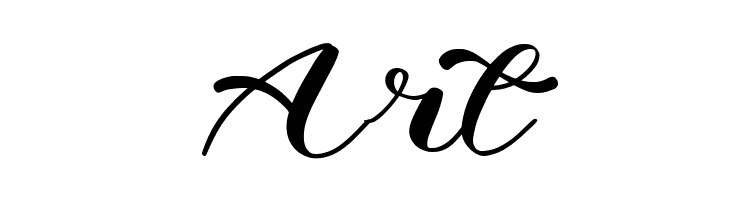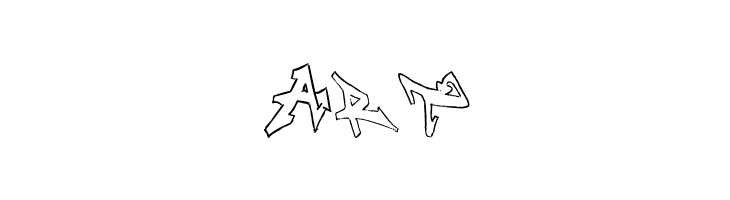
• Alleman
A bold, dynamic script font with calligraphic influences and sweeping strokes.
• Allembert!"
• Allen
A casual handwritten font with an organic and personal touch.
• Allena Signature
• AllenatoreRegular
A modern, geometric sans-serif font with clean lines and a friendly appearance.
• AllenatoreRegularOutline
A modern, geometric outline font with consistent width and structured letterforms.
• Allenattore
A dynamic, cursive script font with a bold, flowing style.
• Allencon Demo
• Allendale
An elegant, flowing script font with smooth, cursive letterforms.
• Allenia Regular
An elegant, high-contrast typeface with a modern and sophisticated design.
• Allenisa - Personal Use
A playful and elegant handwritten script font with fluid, interconnected strokes.
• AllenKeys
A futuristic, angular font with sharp edges and geometric shapes.
• AllensMess
• AllensWonderland
A playful, handwritten font with tall, narrow letters and a whimsical style.
• Allentown
A bold, elegant script font with flowing curves and stylish flourishes.
• Aller
• Aller Bold
• Aller Bold Italic
• Aller Display
• Aller Italic
• Aller Light
• Aller Light Italic
• Allergen Outline
• Alleria
A bold, decorative font with Gothic-inspired details and ornate styling.
• Allerta Medium
• Allerta Regular
A modern, geometric sans-serif font with clean lines and excellent legibility.
• Allerta Stencil